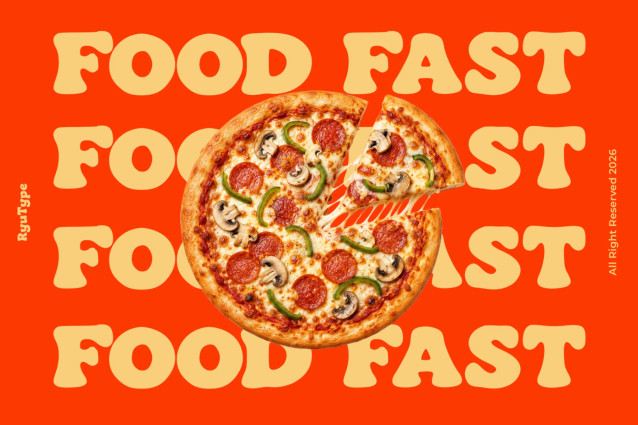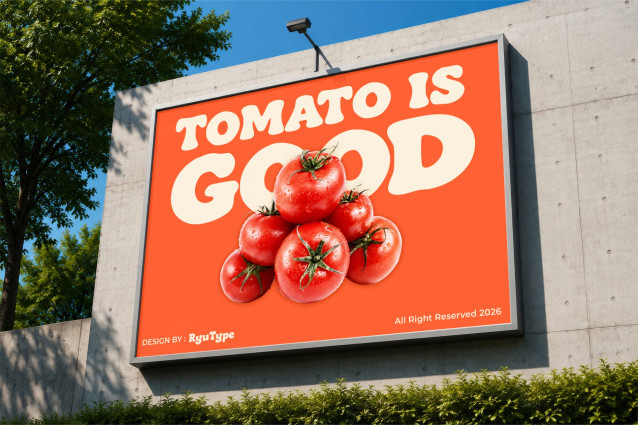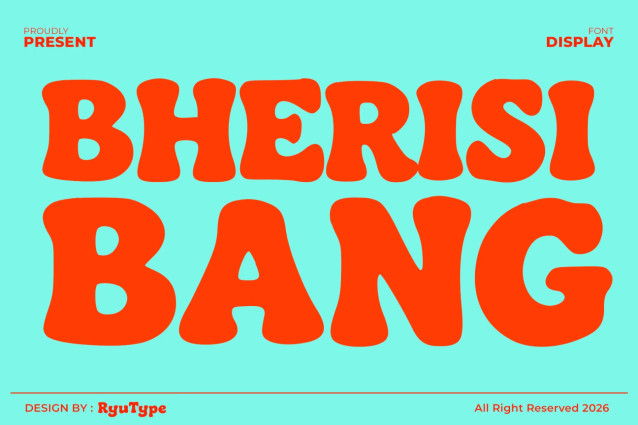
BHERISI is a bold and playful display type inspired by retro food packaging and groovy 1970s lettering. It features chunky rounded shapes, soft organic curves, irregular proportions, and a friendly, bubbly personality — perfect for food branding, restaurant menus, packaging, posters, stickers, merchandise, and fun retro-inspired designs.
Bherisi Font